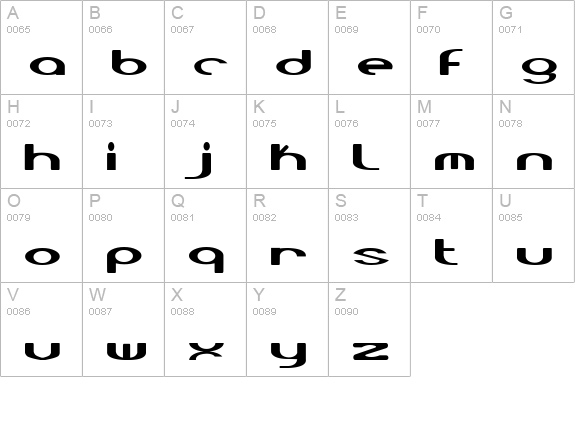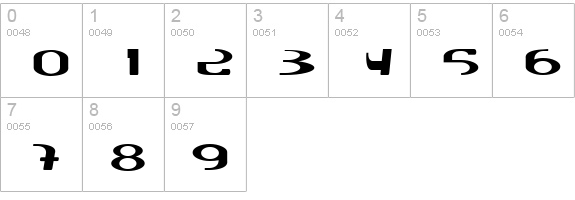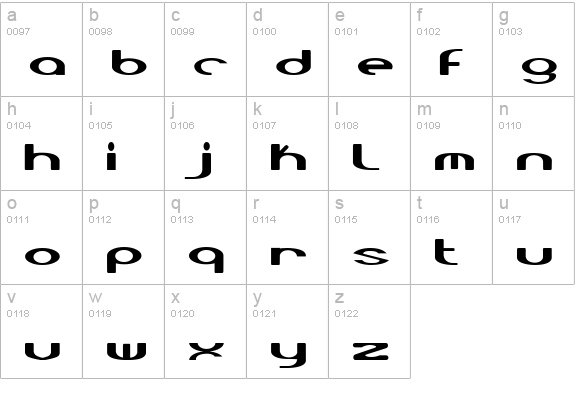
LaureHead Font Details
LaureHead font is a stunning display typeface that effortlessly combines elegance with a touch of playfulness. Its intricate letterforms are meticulously crafted, making it the perfect choice for a wide range of design projects. This font exudes a sense of sophistication and refinement, with each letter carefully sculpted to create a harmonious and balanced visual aesthetic. The graceful curves and subtle details of LaureHead font make it a true standout in the world of typography. With its versatility, LaureHead font can be used for various design purposes, such as logos, branding, headlines, posters, and more. Its eye-catching appeal will captivate viewers and leave a lasting impression. One of the best things about LaureHead font is that it is available for free download at FontsMarket.com. This means that anyone can easily access and utilize this beautiful font in their creative endeavors, without any cost. Whether you are a professional designer or a hobbyist, LaureHead font offers a wealth of possibilities to enhance your projects. So, if you're looking for a free font that combines elegance, versatility, and effortless charm, look no further than LaureHead. Download it now from FontsMarket.com and elevate your designs to a whole new level of sophistication.